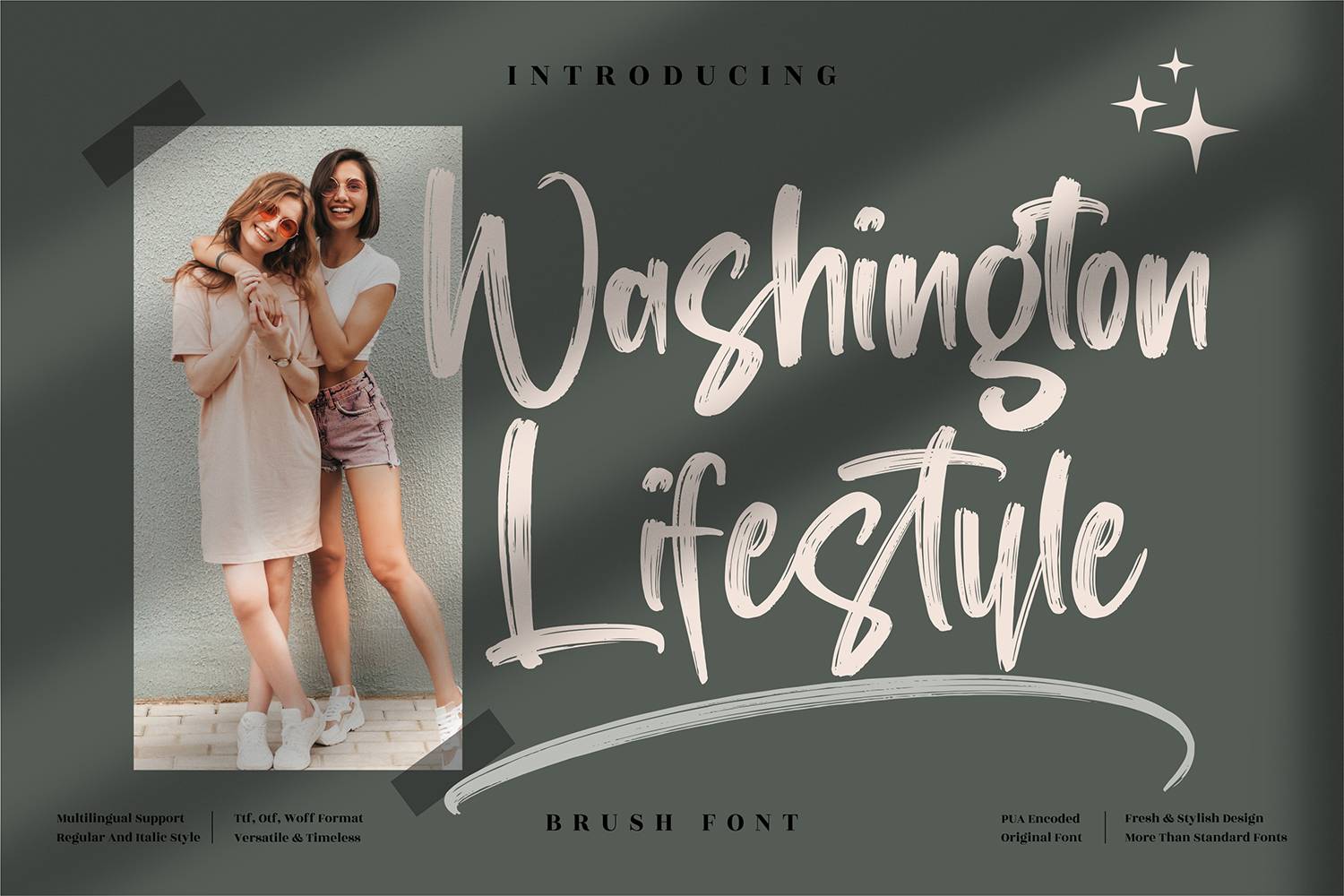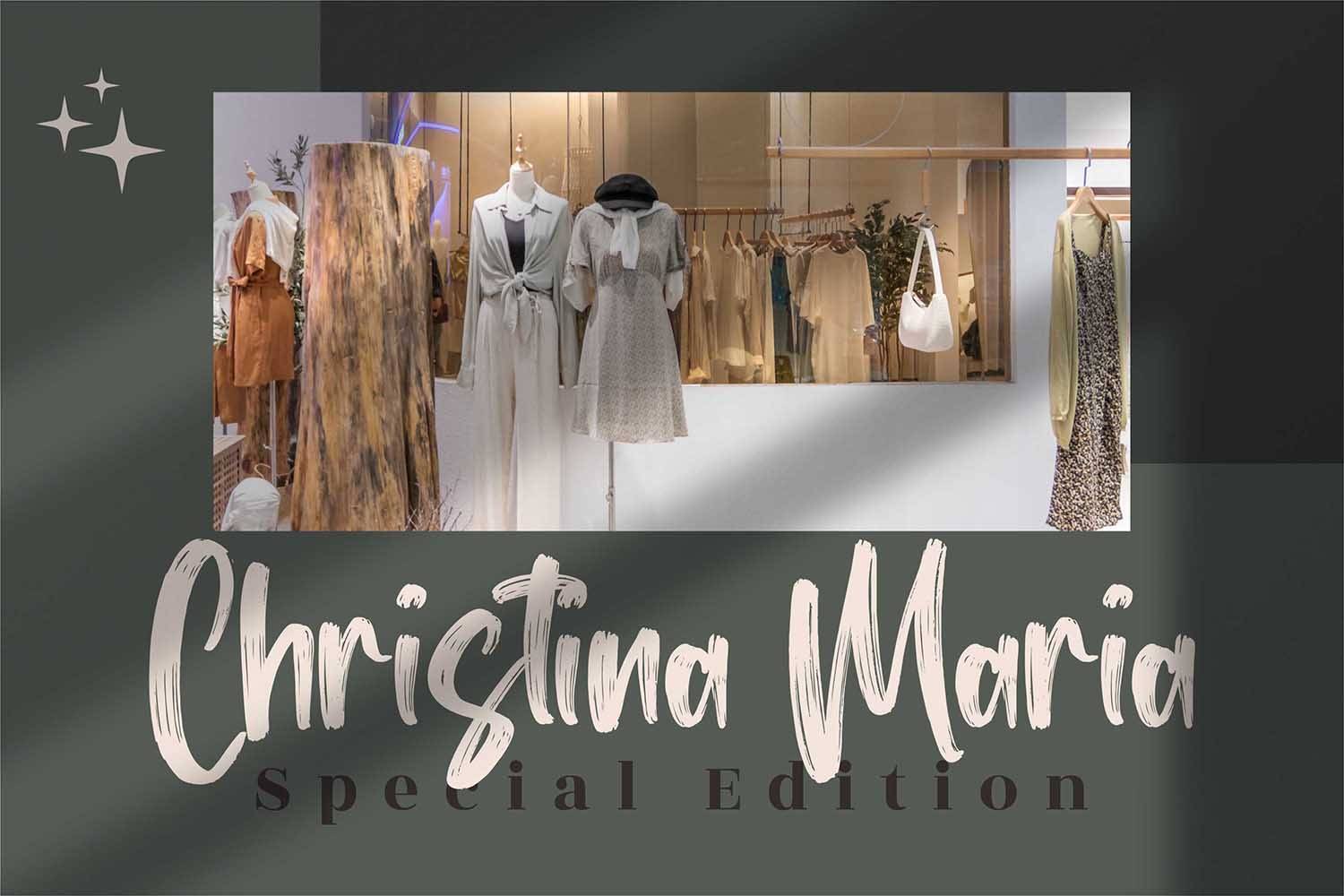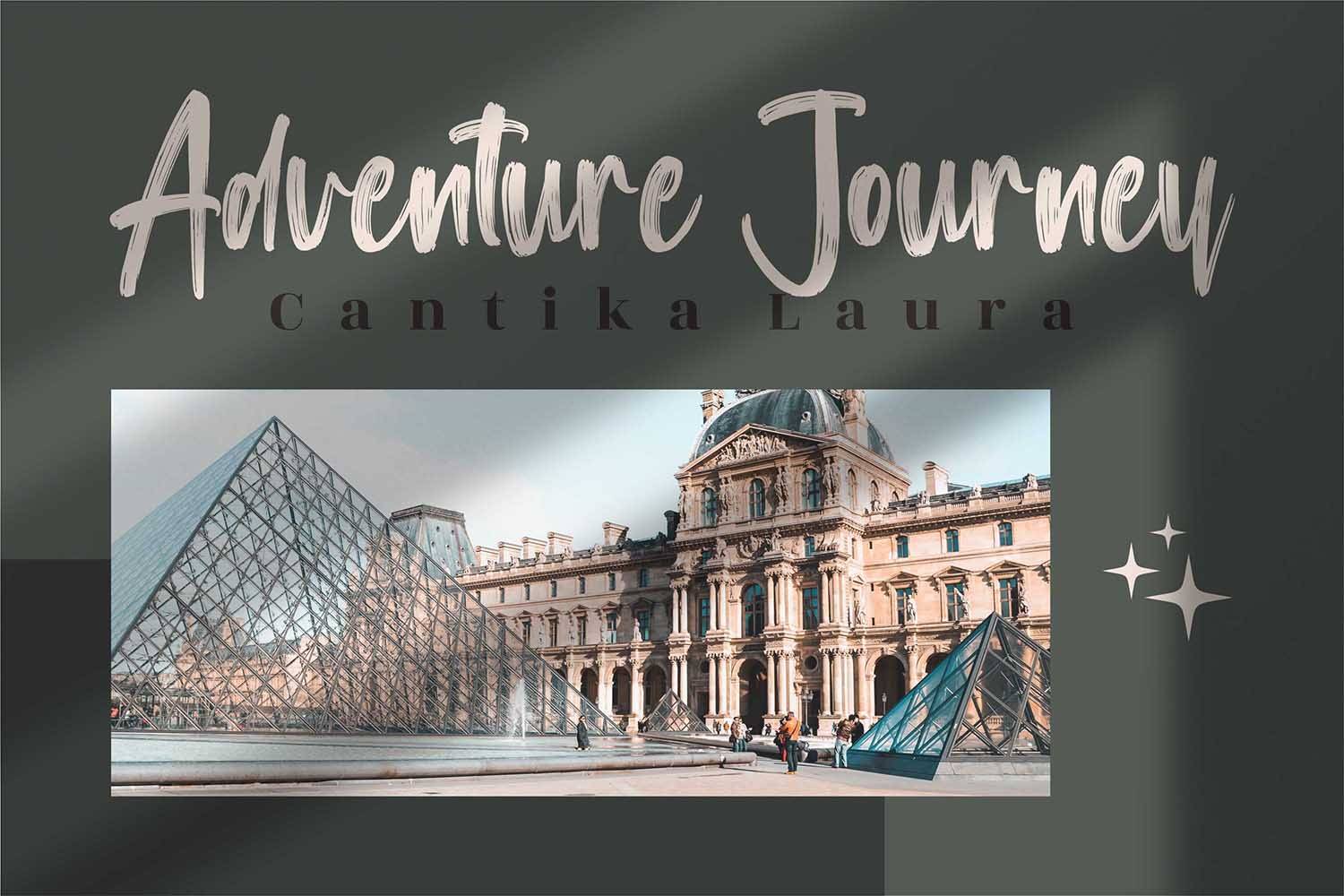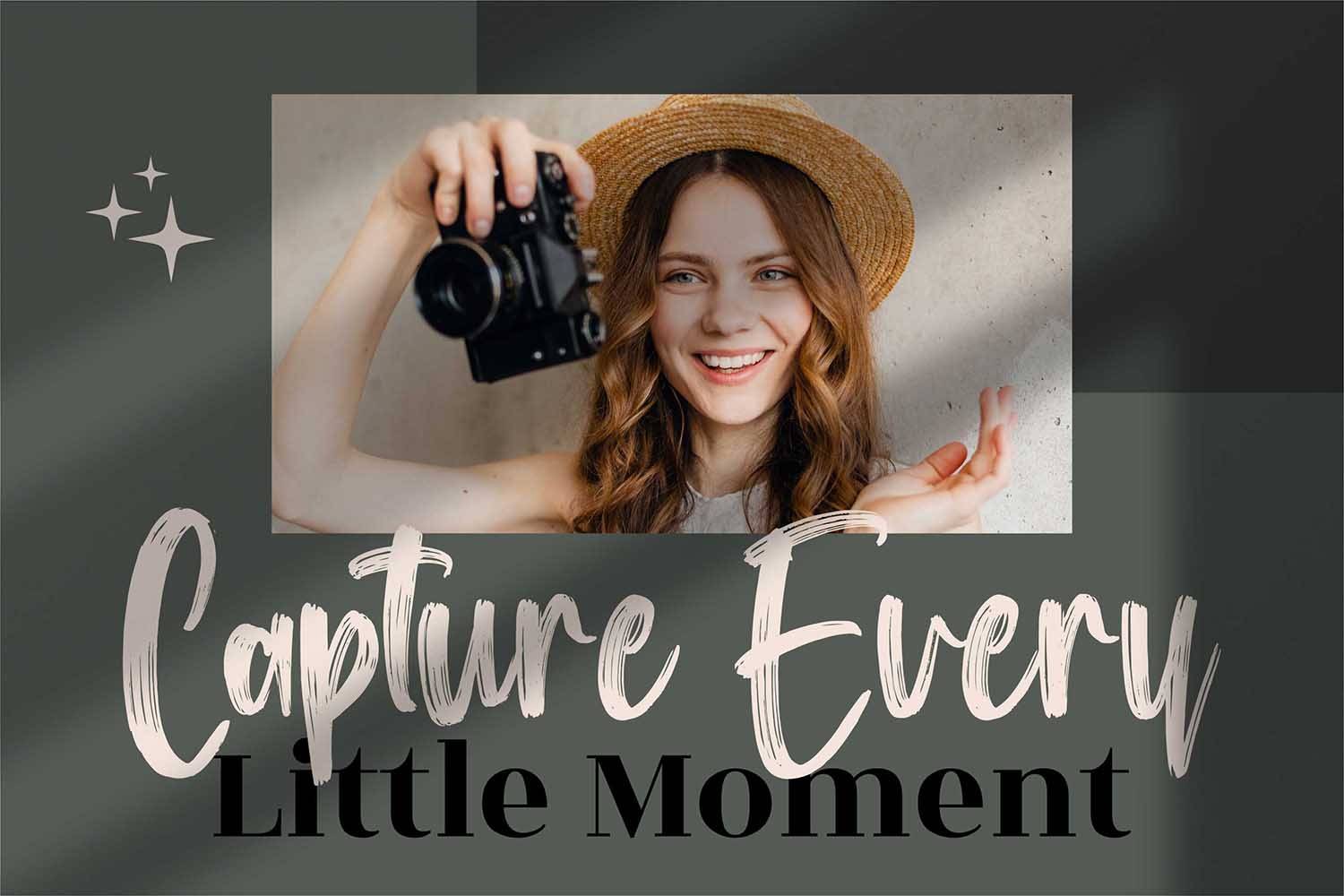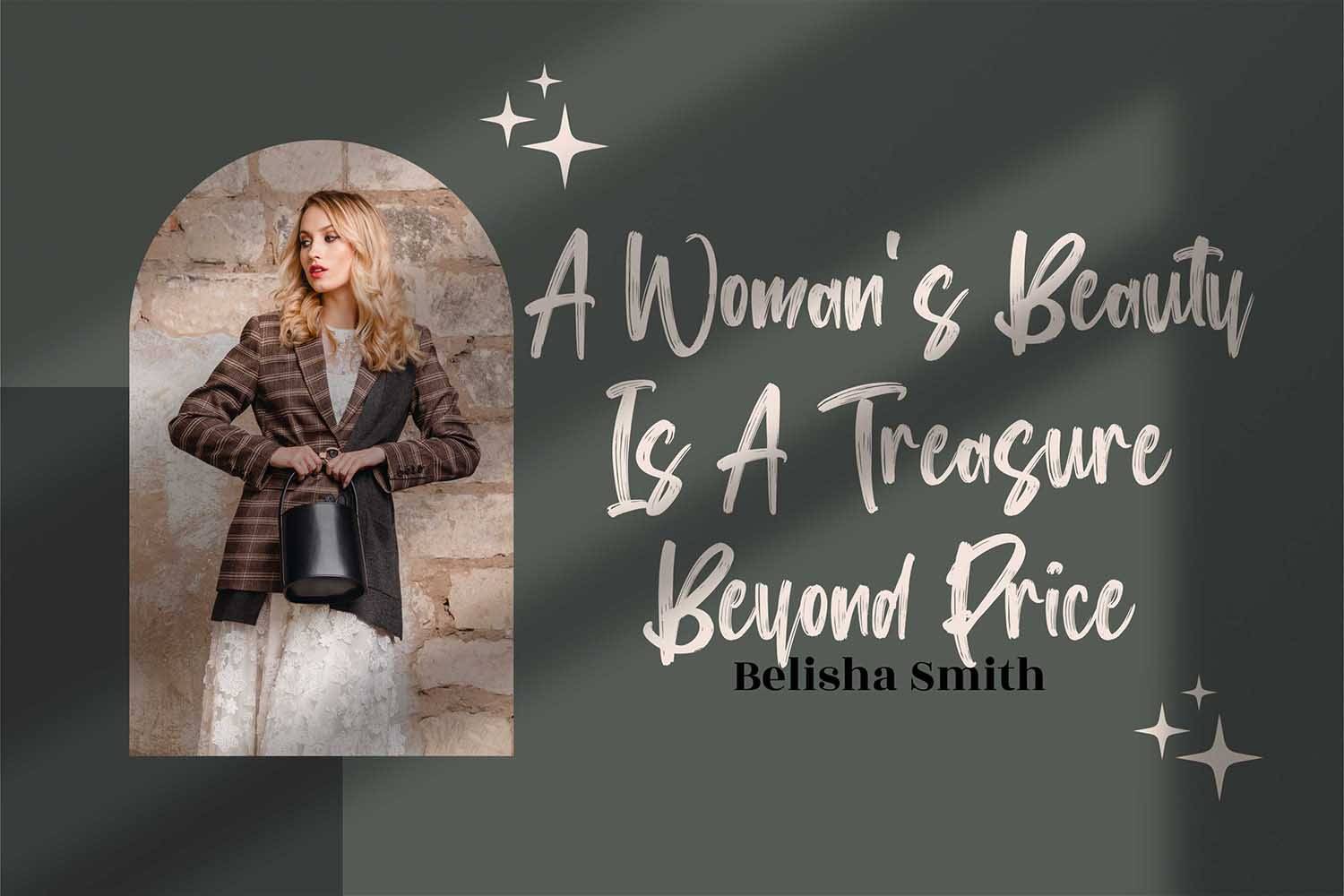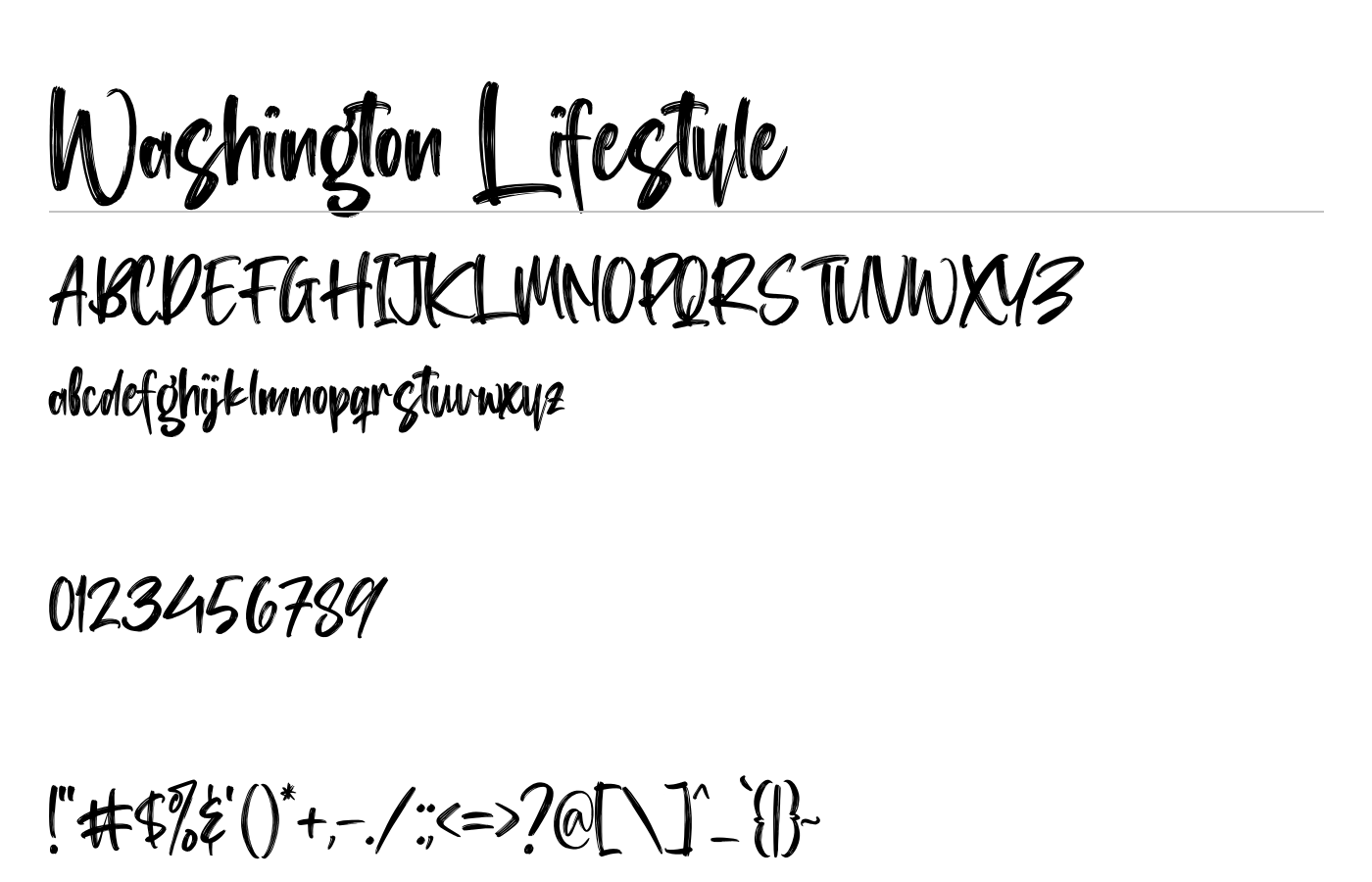
Washington Lifestyle is a bold, casual script font with a hand-painted brush style that delivers a lively and authentic feel. Its tall, narrow letterforms and slightly rough edges give it an energetic and personal touch, making it perfect for creative branding, lifestyle blogs, and expressive headlines. This font works well where a natural, artistic vibe is desired, adding charm and individuality to fashion, packaging, and social media designs.
Washington Lifestyle Font
About Washington Lifestyle Font